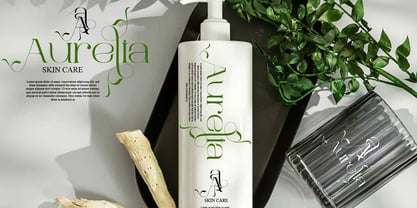
Dream Grandys
Die Schriftfamilie Dream Grandys wurde von Ibram Syah entworfen und von Jehansyah veröffentlicht. Dream Grandys enthält 1 Stile.
Dream grandys is an elegant, perfect and charming serif font, looks very natural and luxurious, this font will also display a natural and romantic professional impression, there are several alternates that you can use, and it is supported by PUA encode, which means you can easily access all glyphs to display alternates, perfect for magazines, books, print media, brands, logos, advertising properties, movie thumbnails, and much more,